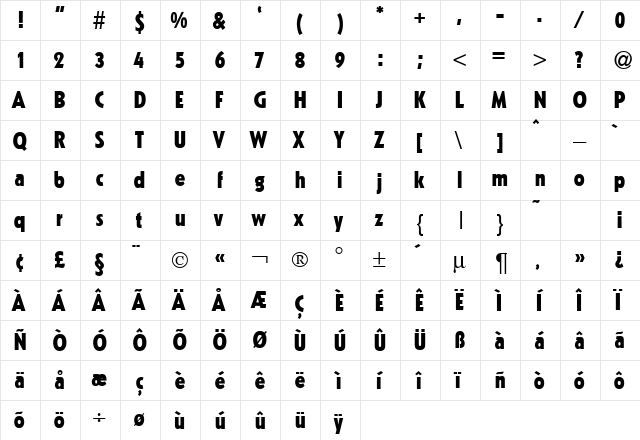
KabinConDB Bold Font Preview
Design Context for KabinConDB Typeface
KabinConDB takes a measured approach to typography — its balanced proportions and neutral character make it a reliable workhorse for both digital and print work. The heavy weight commands attention and anchors typographic hierarchies. Its narrow stance lets it pack a punch even in space-constrained designs.